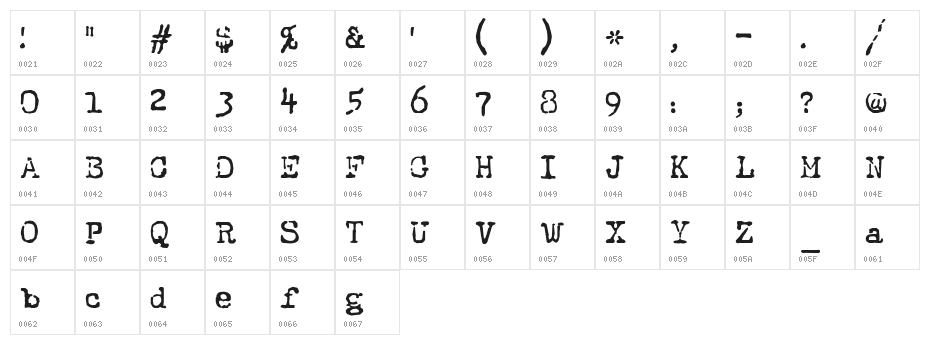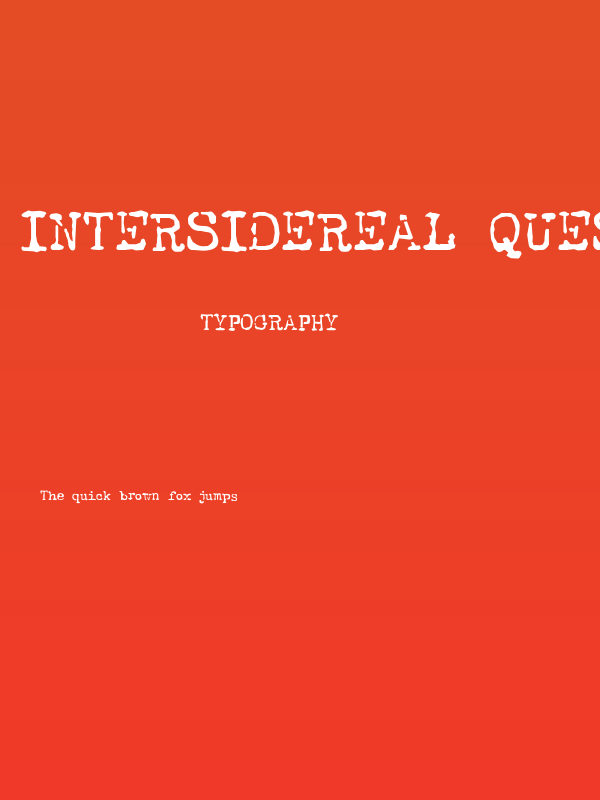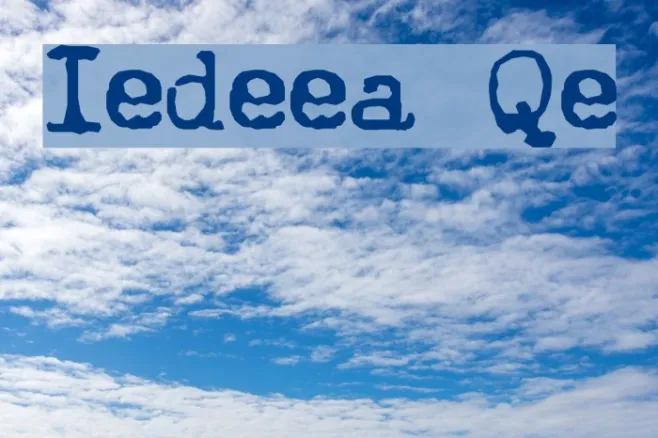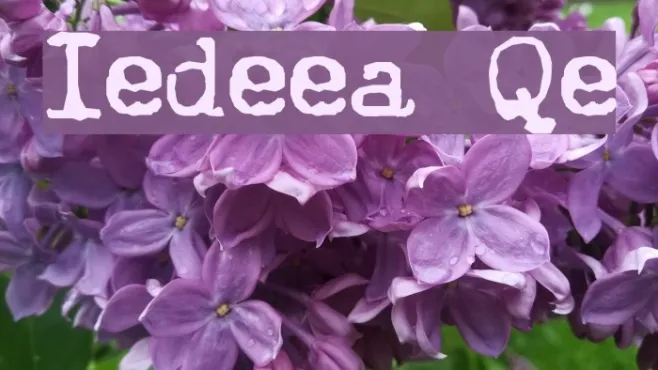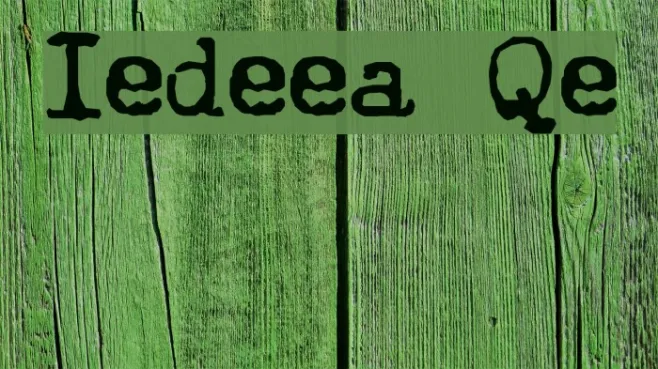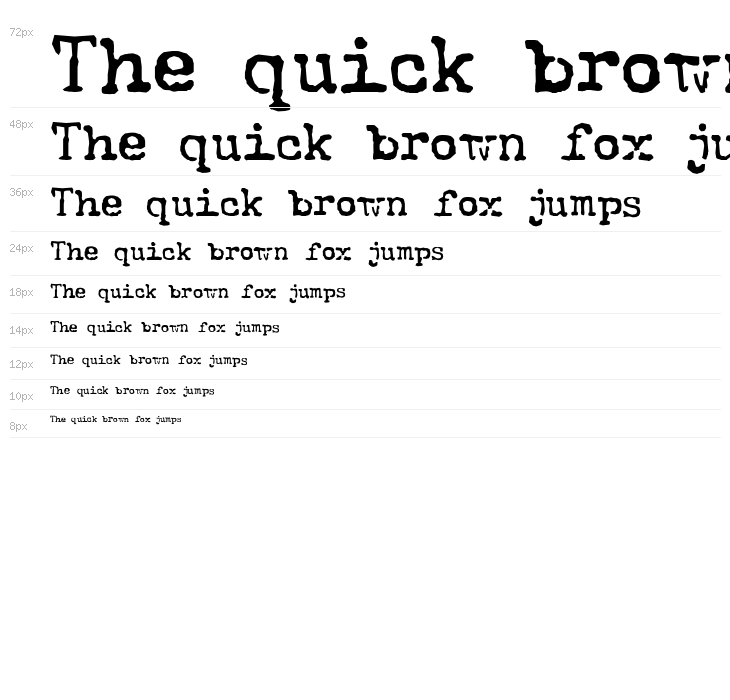
Intersidereal Quest Font
Intersidereal Quest Description
This font features a rugged, distressed appearance, reminiscent of vintage typewriter styles with a modern twist. The characters are bold and slightly irregular, giving them a handcrafted feel. The uppercase and lowercase letters maintain a consistent style, with noticeable variations in stroke width that add to the font's unique character. Numbers and special characters follow the same aesthetic, ensuring a cohesive look across all text. The font's design is ideal for projects that require a touch of nostalgia or a gritty, authentic vibe.
| Proposed Projects | Ideal for vintage-themed posters, book covers, branding for artisanal products, and any design needing a rustic or retro touch. |